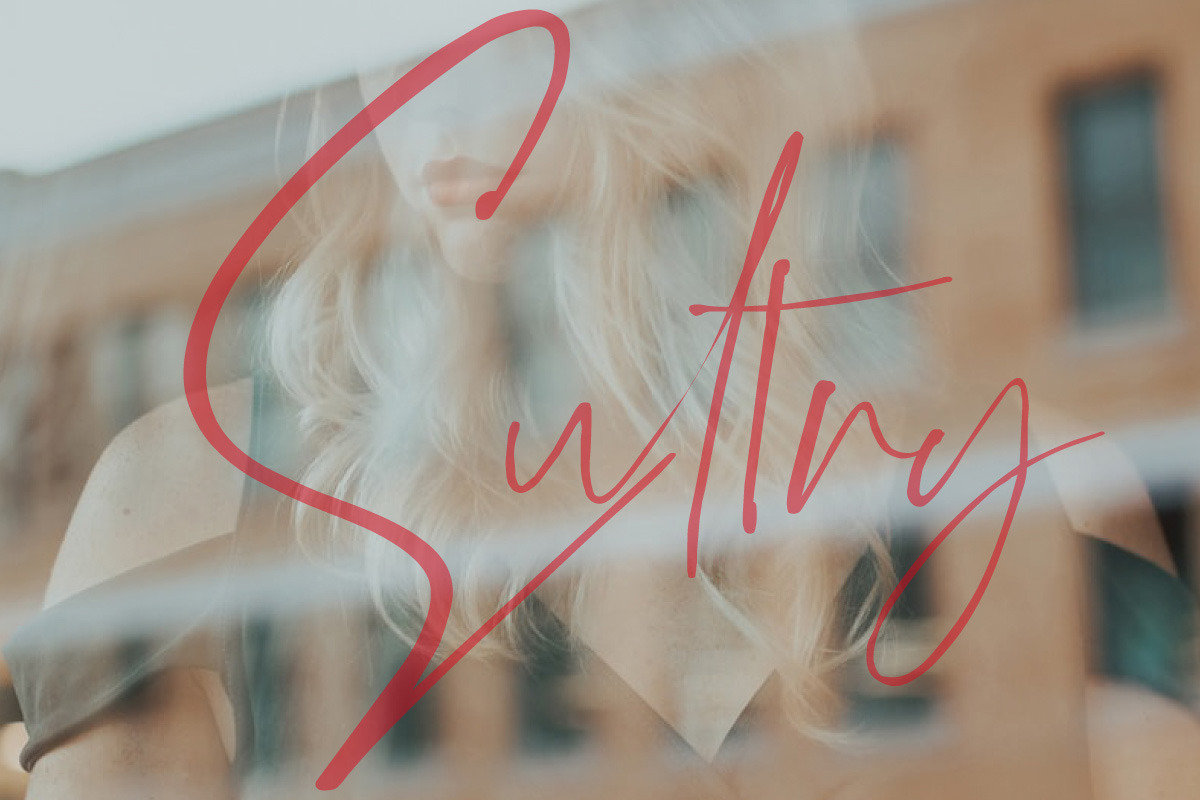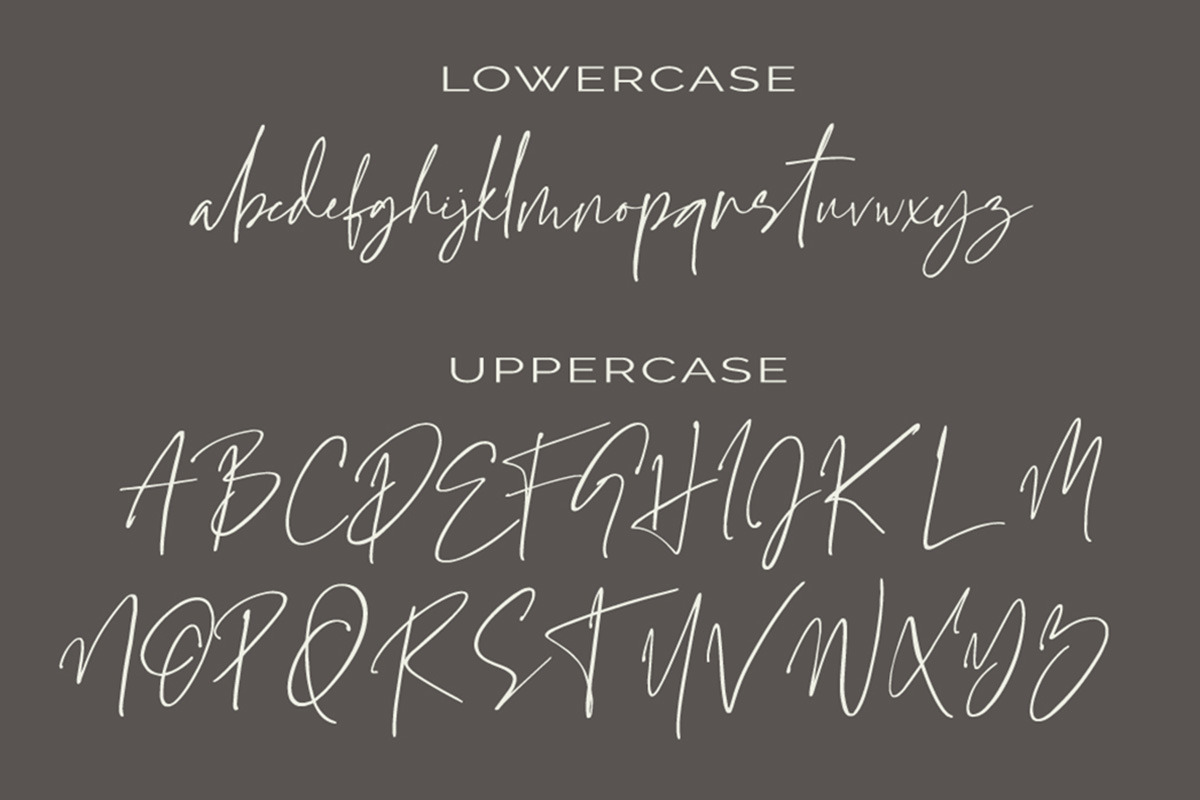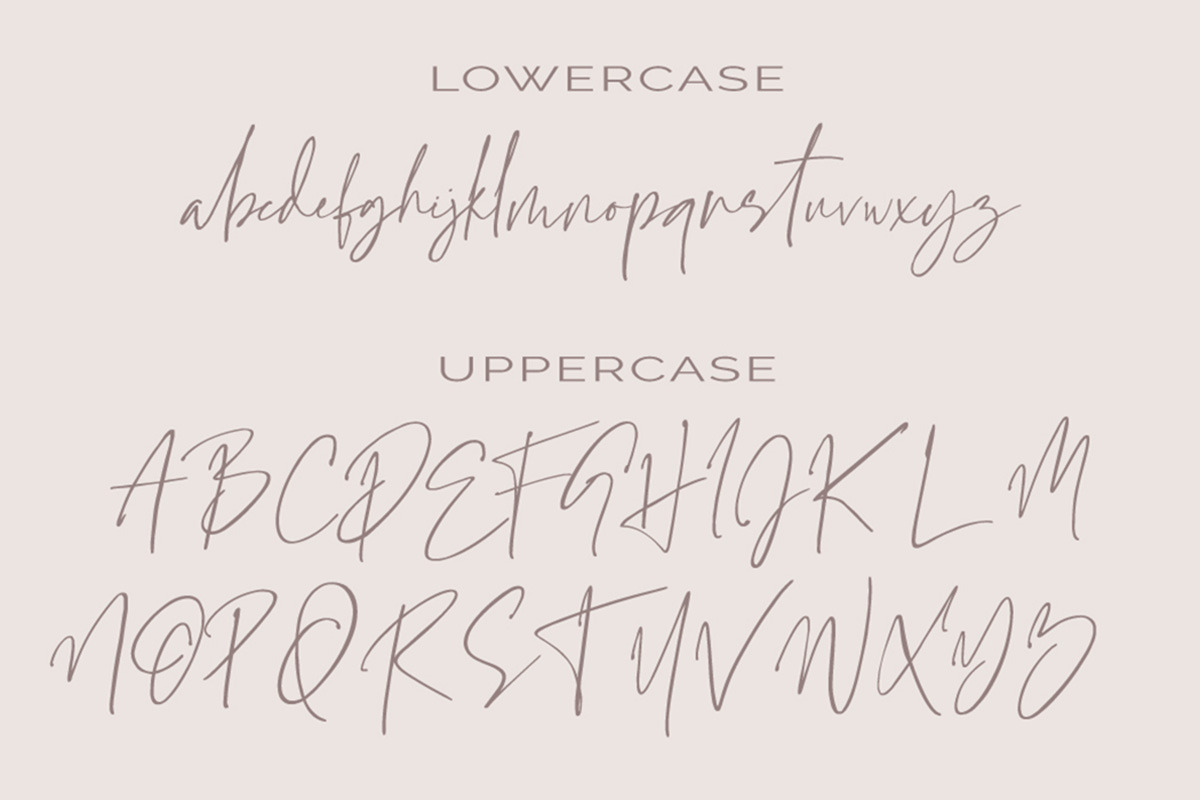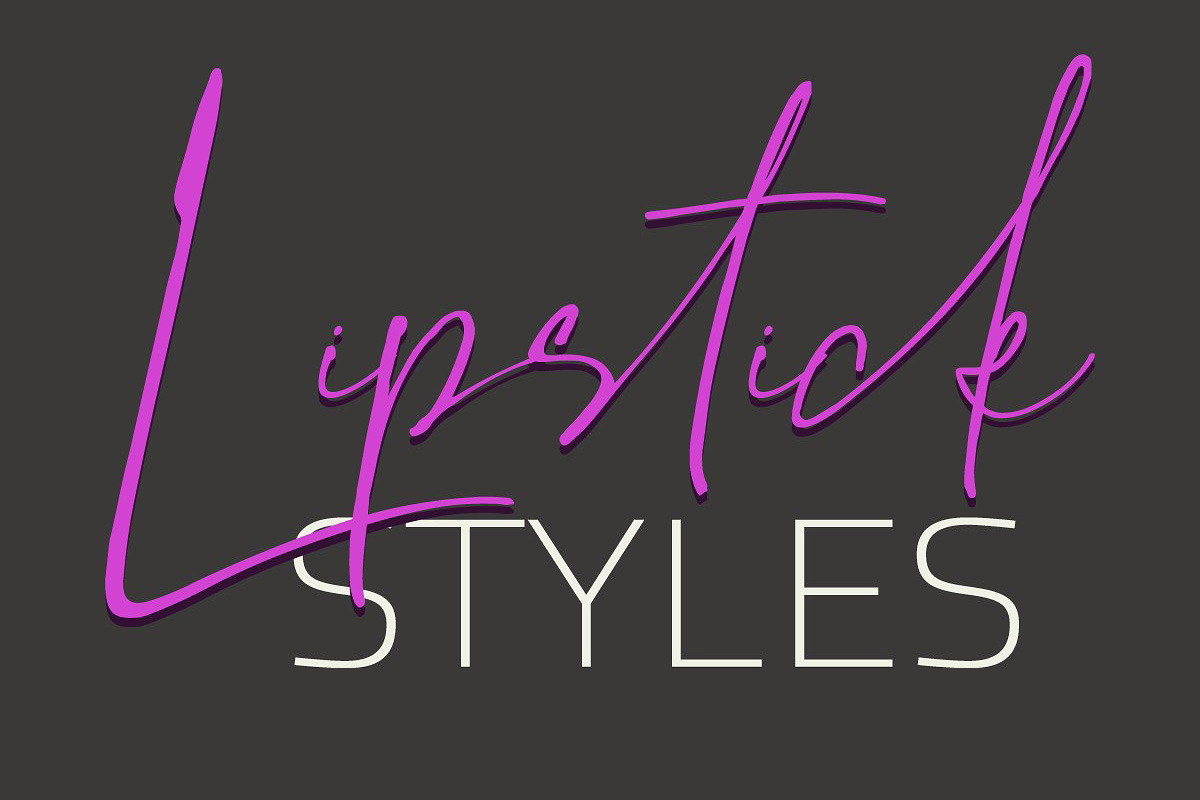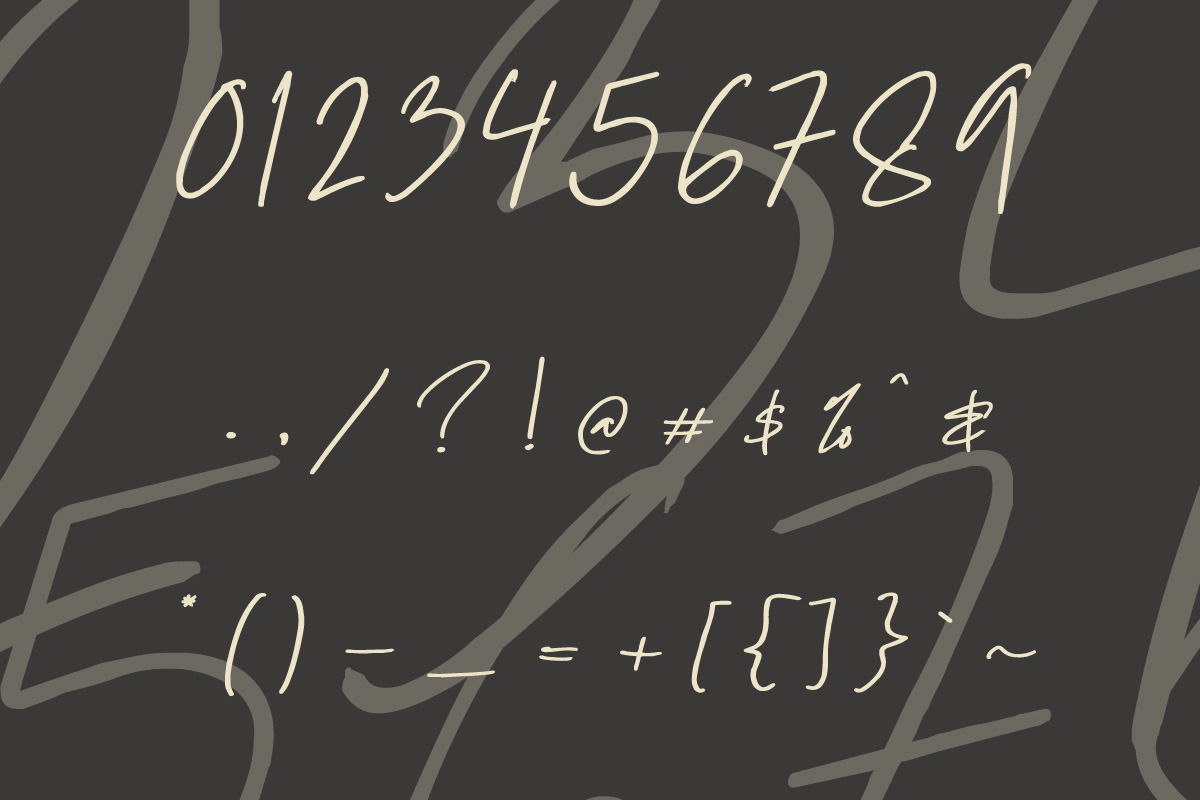
Sultry - Signature Font
Sultry - Stylish Signature Font
This font is smooth but edgy. It has signature like features and is perfect for signatures, cards, portfolio name, freelance book authoring signature.
Sultry includes a full set of elegant uppercase and lowercase letters, multi-lingual symbols, numerals, and punctuation. The font has a smooth wet ink look.